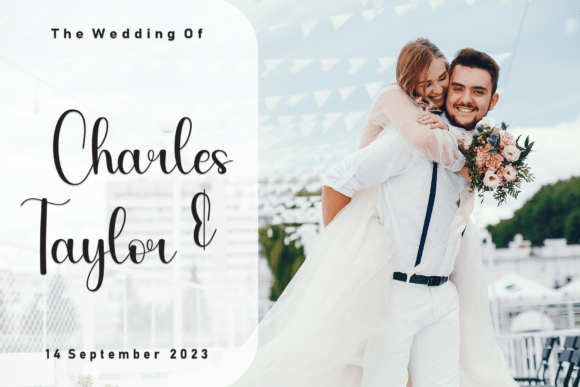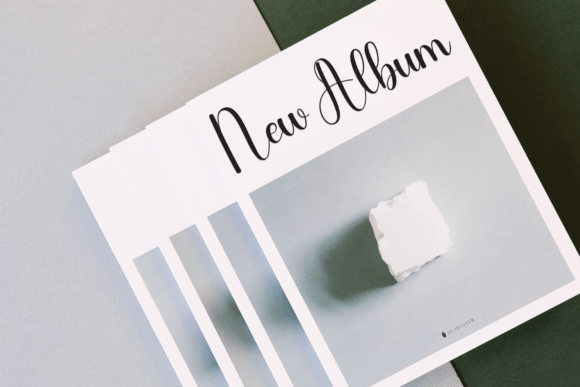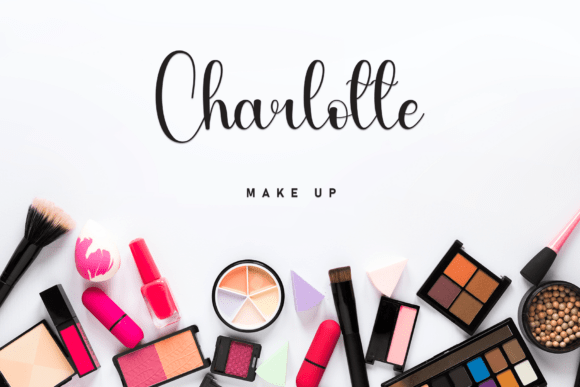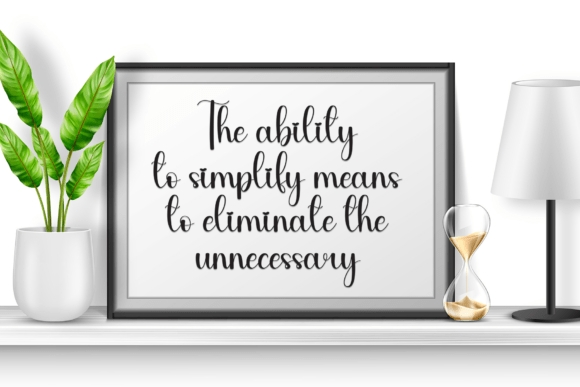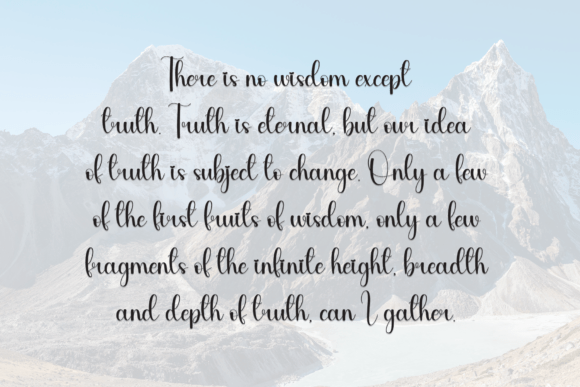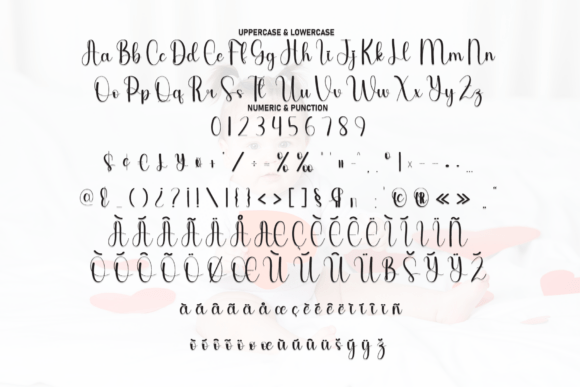
The Magic of Typography: Unleashing the Beauty of Baby Love Font
Have you ever found yourself lost in a sea of fonts, searching for the perfect one to bring your design to life? That’s exactly what happened to me when I stumbled upon the Baby Love Font. As I scrolled through its flowing strokes and elegant curves, I felt an instant connection – it was as if the font was speaking directly to my creative soul.
Created to evoke the beauty of hand-drawn calligraphy, the Baby Love Font is a stunning script font that’s perfect for logos, invitations, packaging, and social media graphics. With its natural rhythm and refined details, it adds an artistic and sophisticated touch to any design, making it a valuable asset for designers looking to elevate their work.
Baby Love Font Key Features
- Font Family: Baby Love Font is a unique, handwritten font designed for various applications, including digital and print media.
- Character Set: The font includes a comprehensive set of characters, including uppercase and lowercase letters, numbers, punctuation, and special characters.
- Unique Characteristics: The Baby Love Font features a distinctive, cursive design with a playful and whimsical feel, making it ideal for baby-related products, children’s books, and other applications requiring a soft, feminine touch.
Designer Review: Baby Love Font
Overall, I’d say that Baby Love Font is a cute and endearing font that’s perfect for projects that need a touch of whimsy and playfulness. ✨ It’s great for baby-related themes, nursery decor, and even children’s book covers.
- ✨ Unique and custom design that sets it apart from other fonts
- ✨ Friendly and approachable feel that’s perfect for family-related projects
- ✨ Wide range of character sets, including punctuation and symbols
- ⚠️ Limited font sizes: Some users have reported issues with font sizes above 48 points
- ⚠️ Not ideal for body text: Due to its playful nature, Baby Love Font may not be the best choice for large blocks of text
Overall, I’d give Baby Love Font 4 out of 5 stars. It’s a great choice for projects that need a touch of personality, but it may not be suitable for every design task. With some careful planning and selection, however, it can be a wonderful addition to your font collection.
Tips for Getting the Most Out of Baby Love Font
For the best results, use the Baby Love Font in a design that features pastel colors, cute illustrations, or playful graphics.
Experiment with different font sizes and combinations to create a visually appealing design.
The Baby Love Font is ideal for:
- Baby shower invitations and decorations.
- Children’s birthday party designs.
- Parenting blogs and social media graphics.
- Any design that requires a playful, whimsical touch.